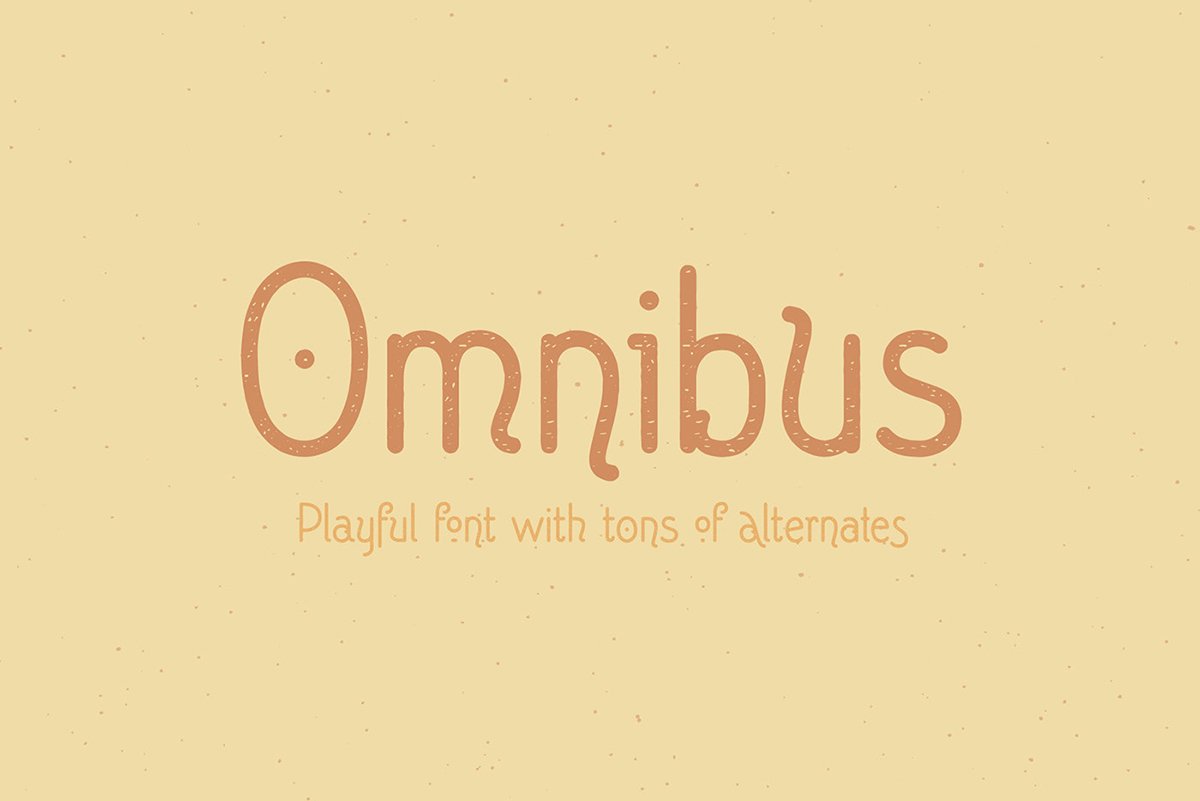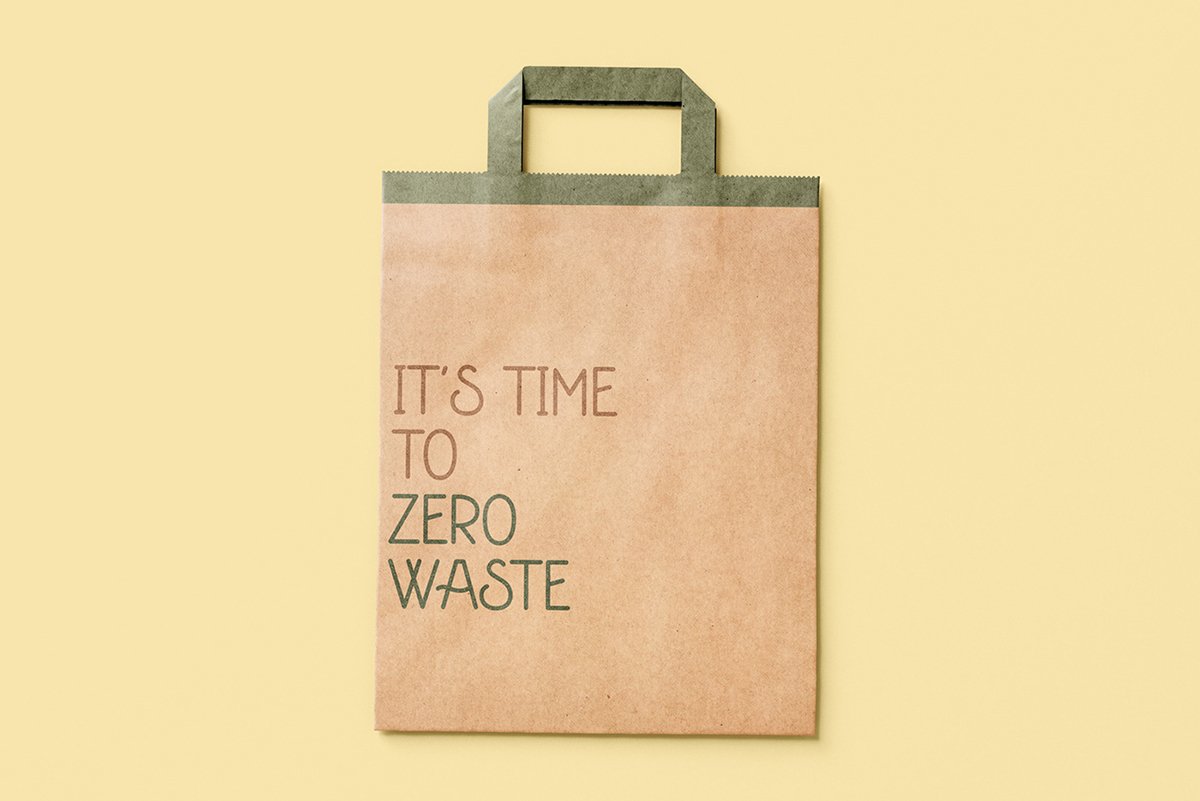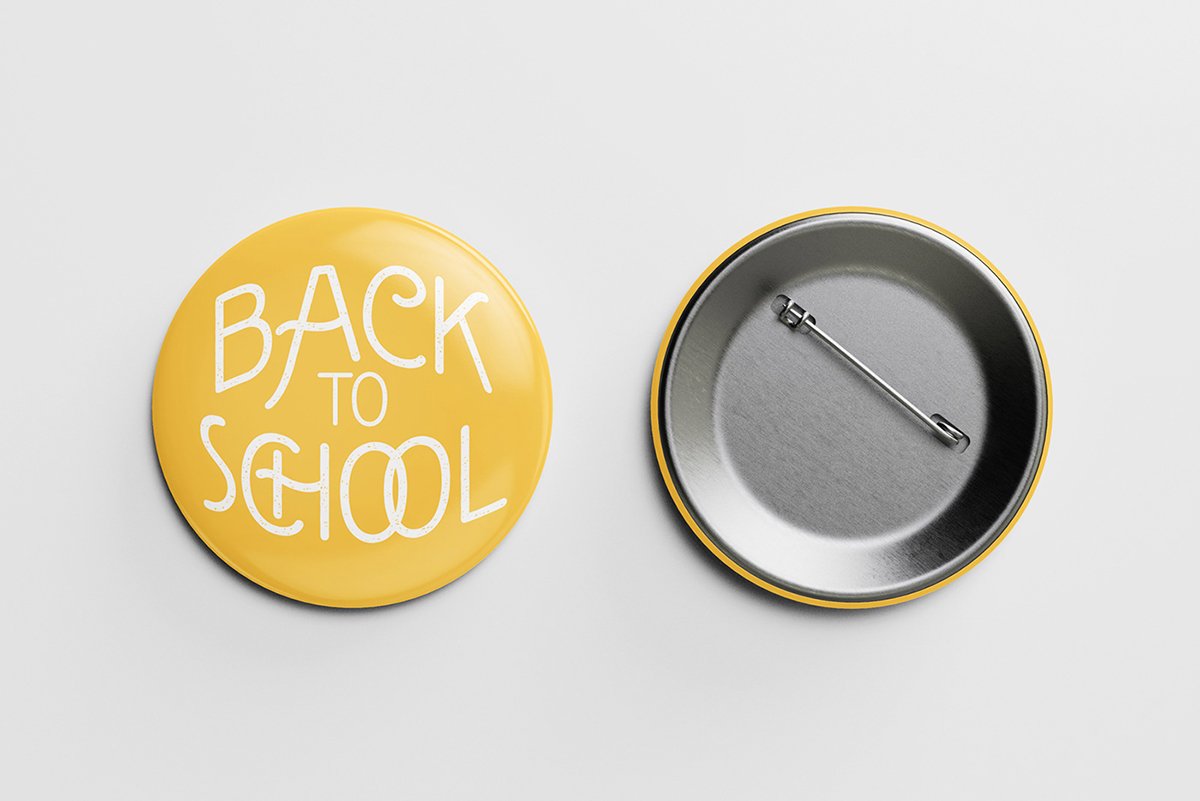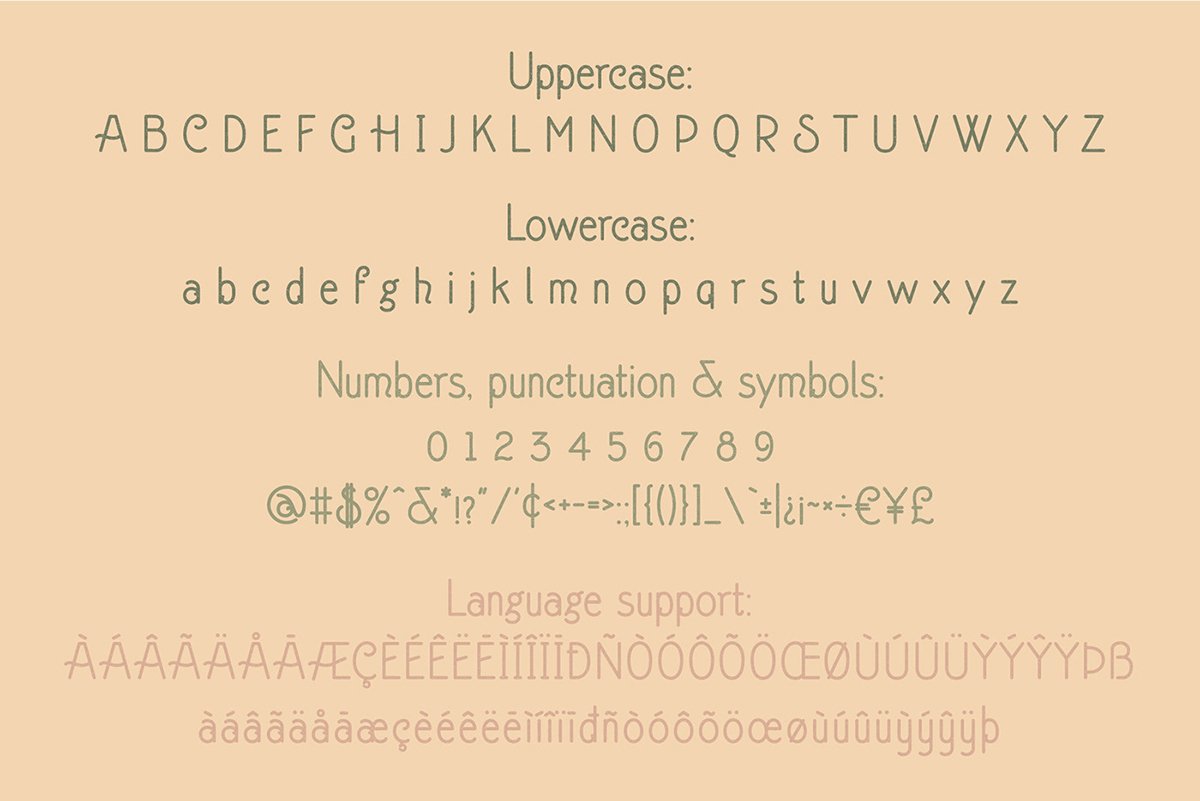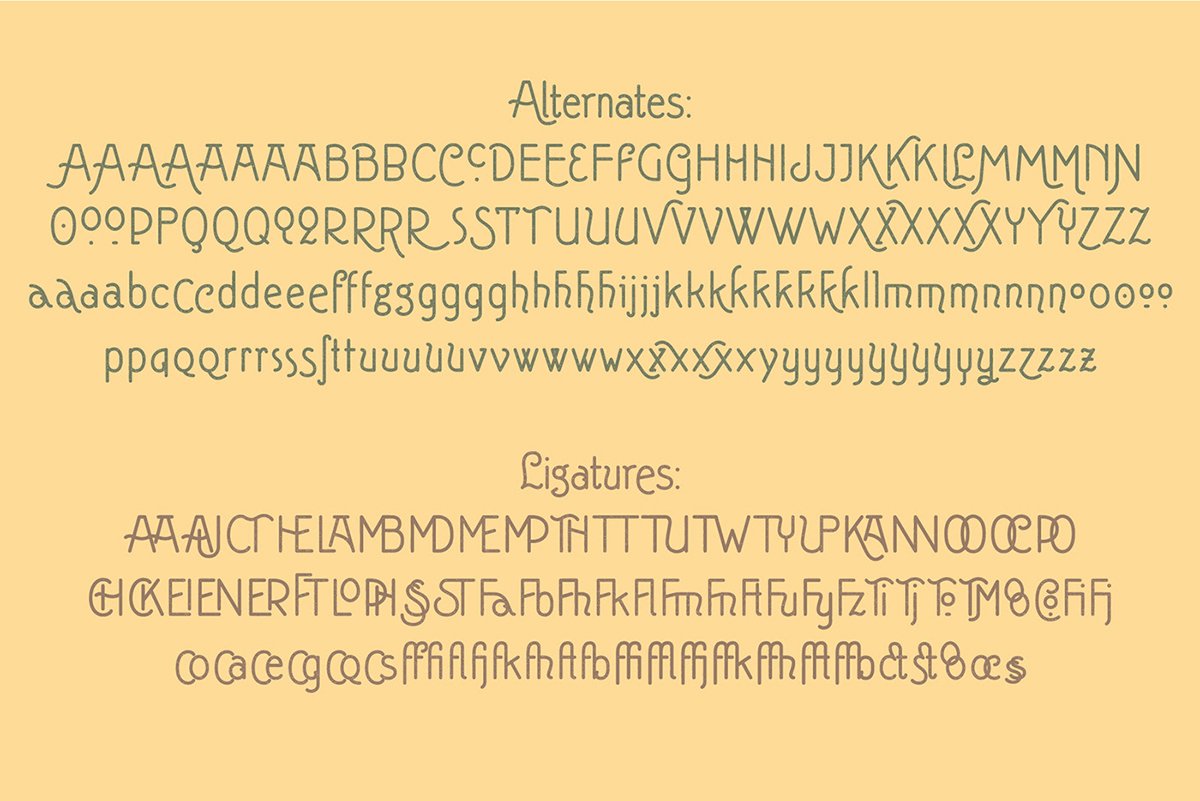
Omnibus Free Display Font is a modern playful sans with tons of alternates and ligatures. At the beginning, it was supposed to be a slightly different type of font. However, during the design phase the concept changed – the designed font had greater potential. The font is great for brandings, fun projects, posters, covers and more. Enjoy!
Omnibus